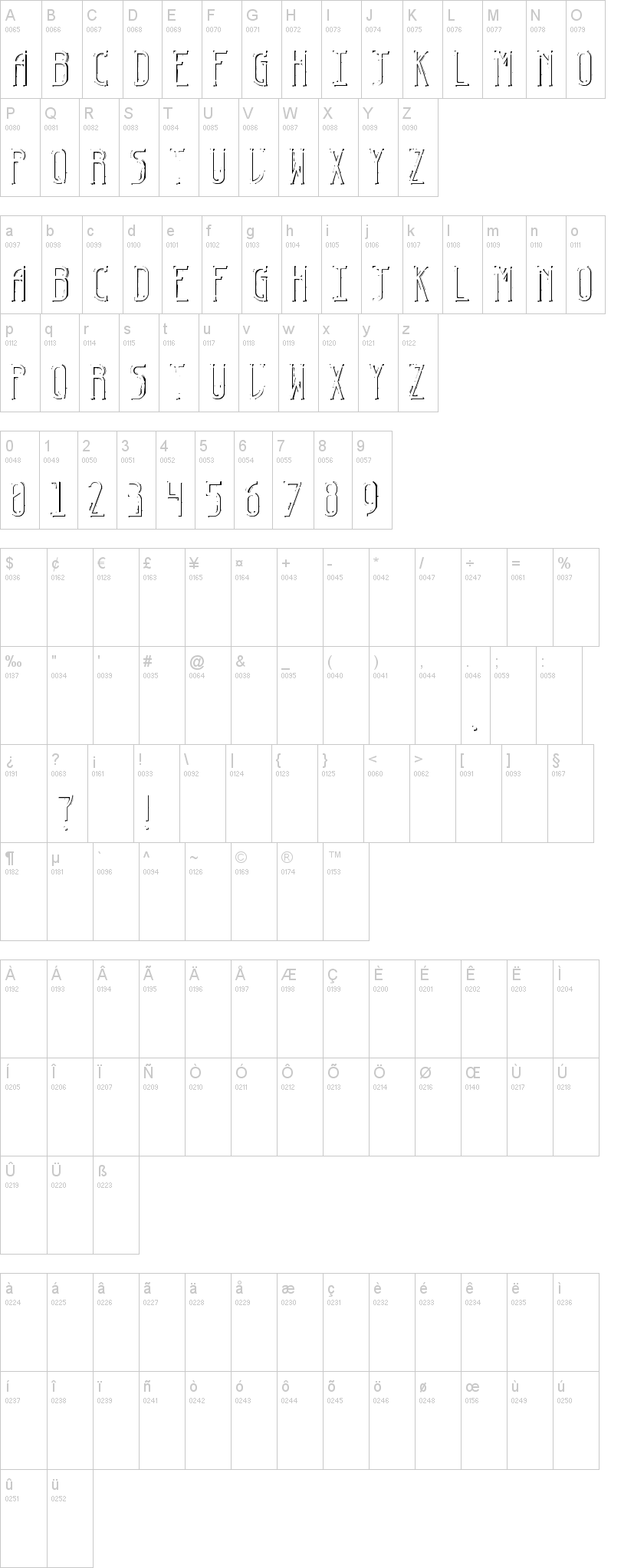
Шрифт Espy
Typeface that is primarily for Logo Design
Inspired by Shadows casted by heavy lights and the wires and mechanisms in a vintage lighthouse bulb